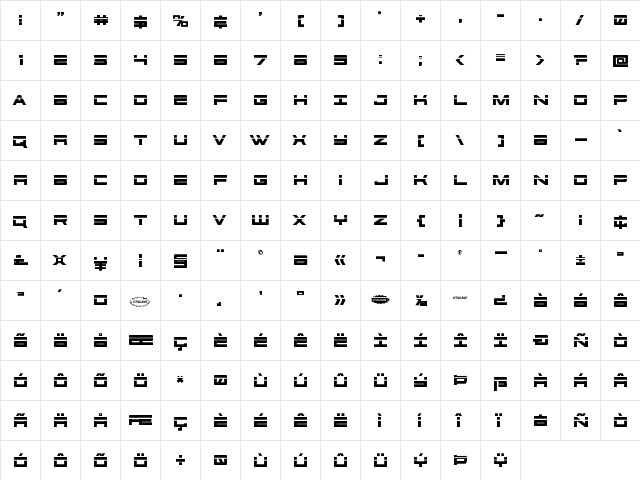
Future Forces Laser Regular
Design Context for Future Forces Laser Typeface
Future Forces Laser has a distinctly futuristic character, with geometric precision and clean angles that feel at home in technology, gaming, and sci-fi contexts.
Pro Tip: Try Future Forces Laser with generous letter-spacing in UI labels and navigation — the geometric forms benefit from room to breathe.